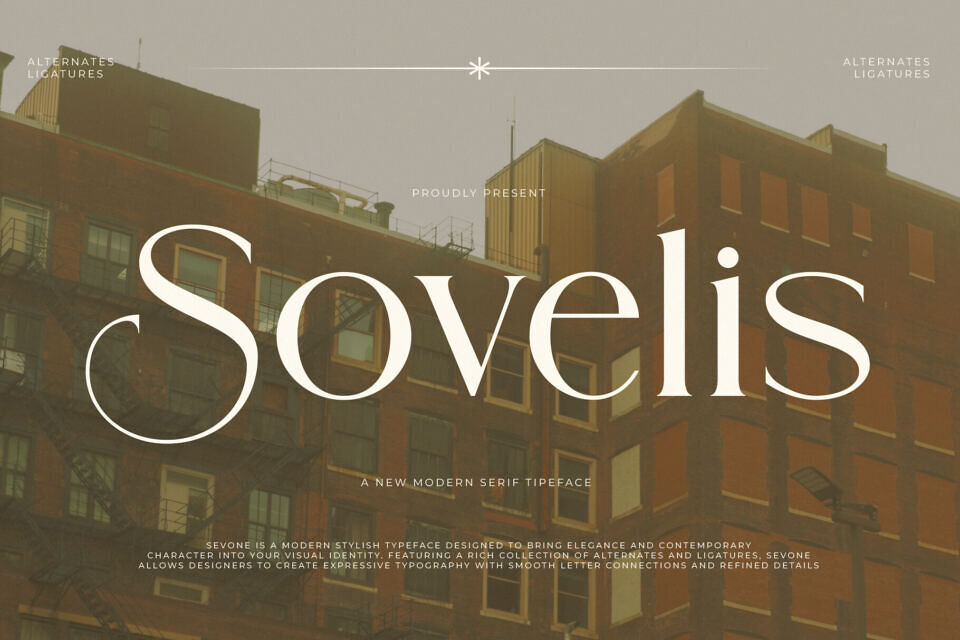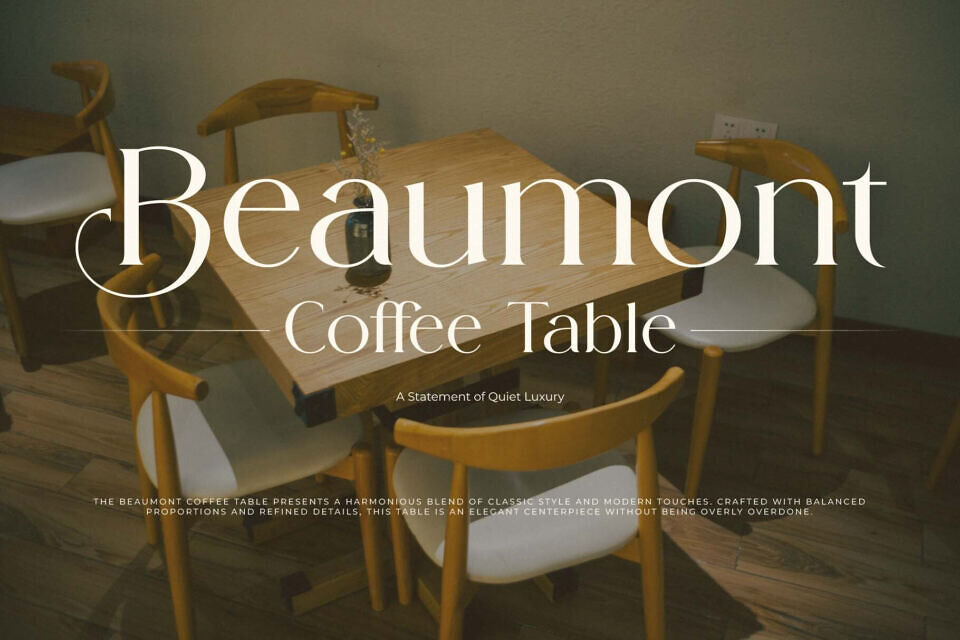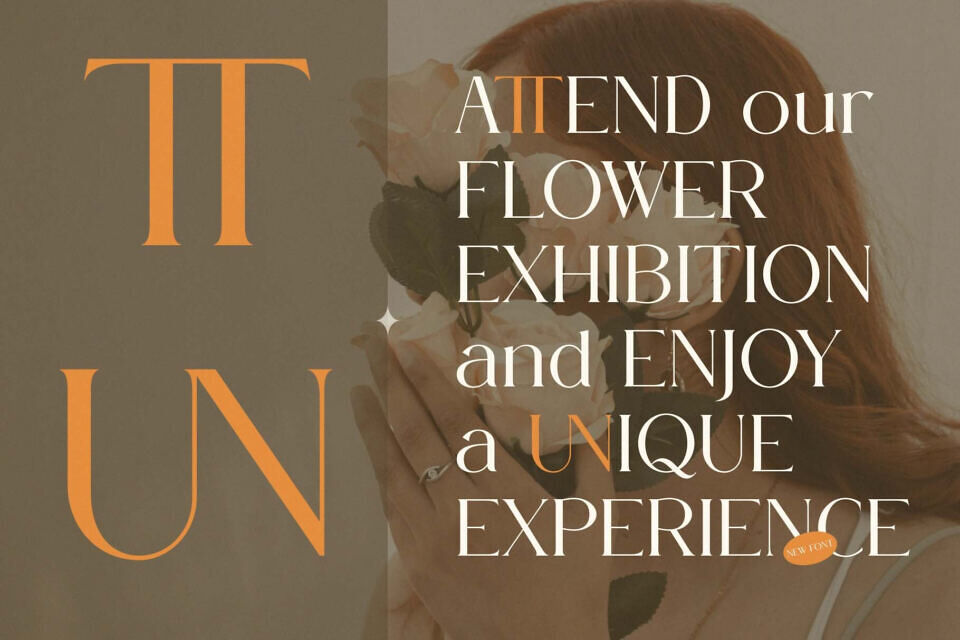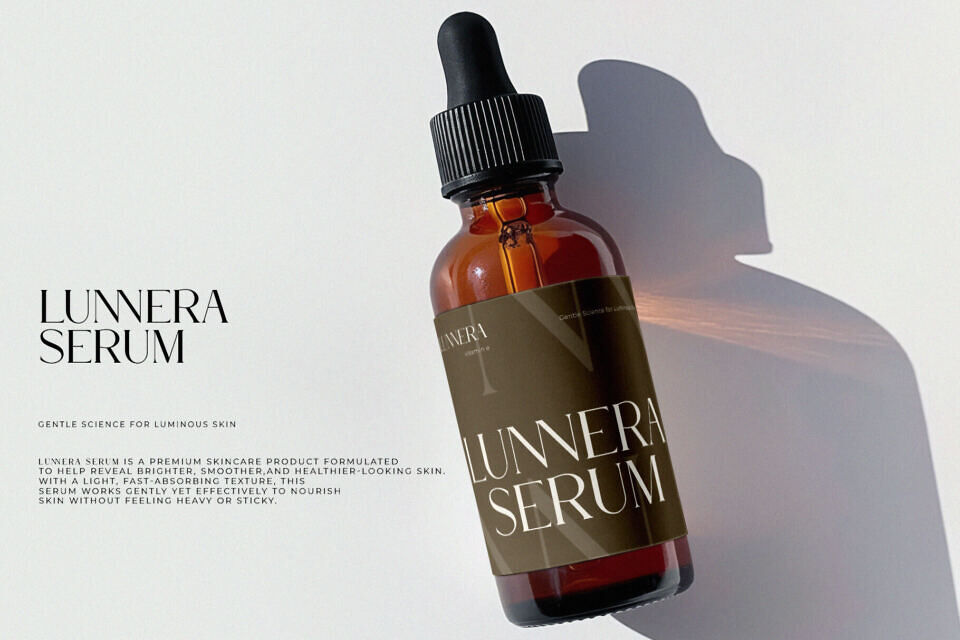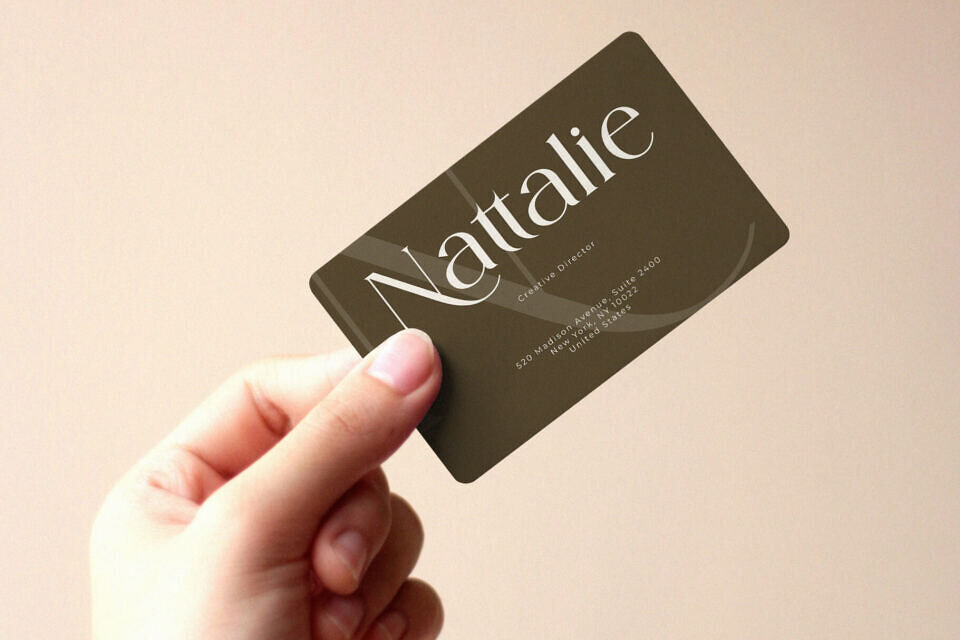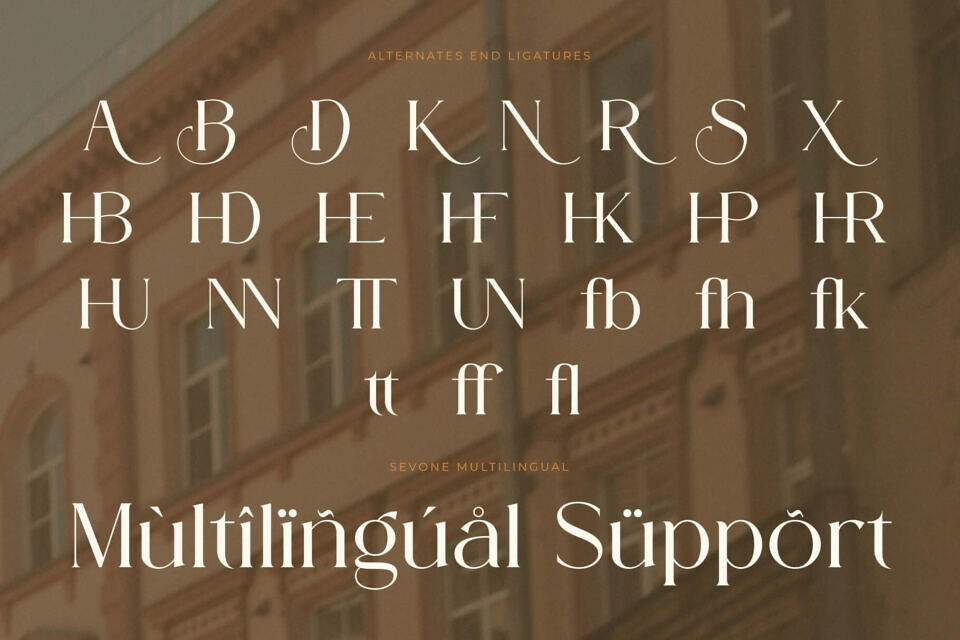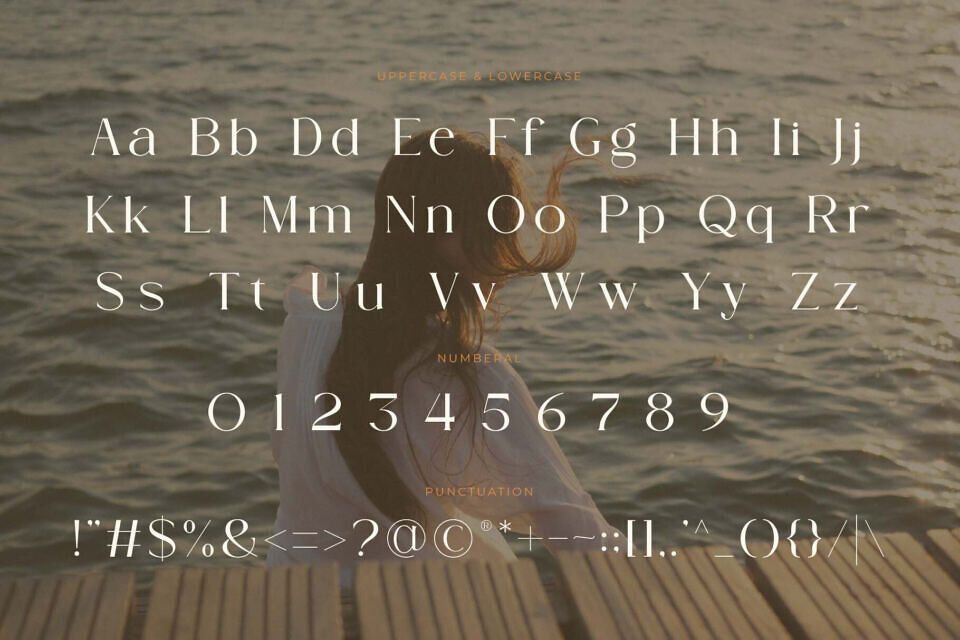
Sovelis Font
Redefine sophistication with Sovelis, a modern stylish display typeface that captures an “architectural-and-high-end” soul. This font features high-contrast serif letterforms characterized by elegant, sweeping curves and sharp, refined details that bridge the gap between classic heritage and contemporary chic.
With its rich collection of alternates and rhythmic ligatures, Sovelis is the premier choice for independent luxury branding, high-fashion editorial layouts, upscale real estate identities, and high-impact “urban-sophisticate” social media headers.